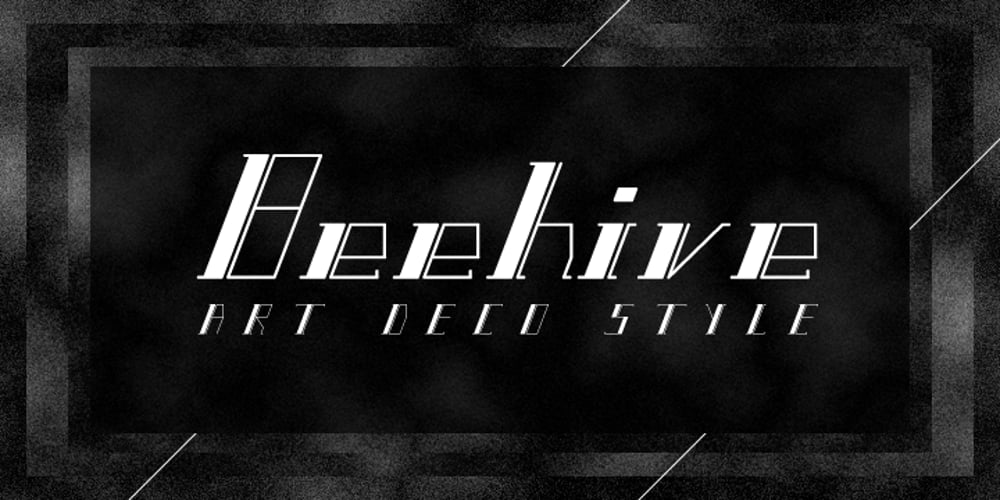
Beehive
Beehive font
Beehive Font Family was designed by Matt Grey and published by Matt Grey Design. Beehive contains 3 styles and family package options. Beehive is an Art Deco inspired display typeface with a unique slant, each word fits below one another neatly, which is perfect for creating stylised titling and logos. Beehive is made to look like a vintage, art deco styled typeface, the font is ideal for branding, posters, band artwork or album covers and endless other uses. Great for titling or medium sized text, made to be as big as possible because of the thin lines.